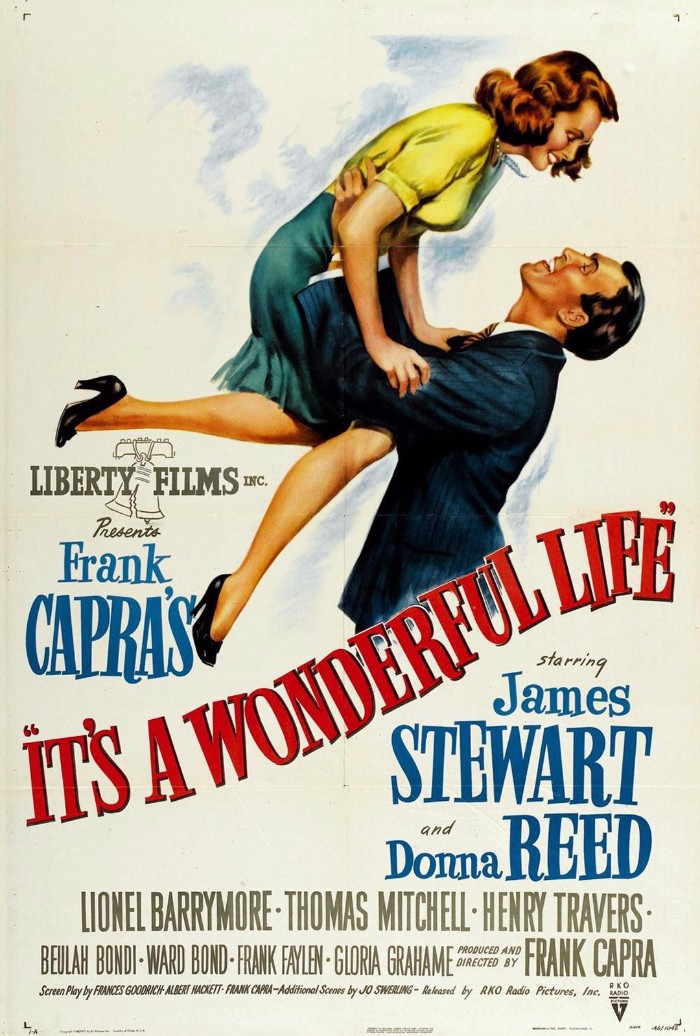
It's a Wonderful Life Font
DramaIt’s a Wonderful Life is a classic Christmas movie released in 1946, directed by Frank Capra. It tells the story of a man who is shown what life would have been like if he never existed and learns the true value of his life.
The film title on the poster is likely hand-lettered, and no exact font match has been found. The closest font resemblance is Sexsmith, a Clarendon-style font designed by Ray Larabie, which can be downloaded for free from the Fonts Used Section. You can also purchase Beatnik Barbie by Alex Kaczun, which has a similar bouncy style.